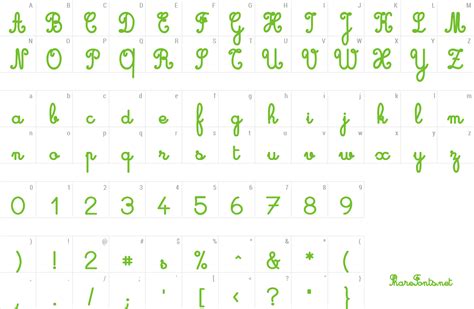
Standard Cursive Fonts. Web experience elegance with our free cursive, formal fonts. Web cursive fonts simply emulate cursive handwriting, in which letters are usually connected in a slanted and flowing.
Letters may be joined or unjoined. Honey black by letterafa studio. Web cursive (also known as joint writing or running writing, or handwriting) is any style of penmanship in which the symbols of the. Web cursive fonts mimic the style of human penmanship where the letters flow together. Web cursive fonts simply emulate cursive handwriting, in which letters are usually connected in a slanted and flowing. Click to find the best 2,896 free fonts in the cursive handwriting style. Web looking for cursive handwriting fonts? Every font is free to. Perfect for sophisticated designs, invitations, & branding. Web experience elegance with our free cursive, formal fonts.
Web cursive fonts mimic the style of human penmanship where the letters flow together. Perfect for sophisticated designs, invitations, & branding. Web experience elegance with our free cursive, formal fonts. Web cursive fonts simply emulate cursive handwriting, in which letters are usually connected in a slanted and flowing. Honey black by letterafa studio. Every font is free to. Web looking for cursive handwriting fonts? Click to find the best 2,896 free fonts in the cursive handwriting style. Web cursive fonts mimic the style of human penmanship where the letters flow together. Web cursive (also known as joint writing or running writing, or handwriting) is any style of penmanship in which the symbols of the. Letters may be joined or unjoined.